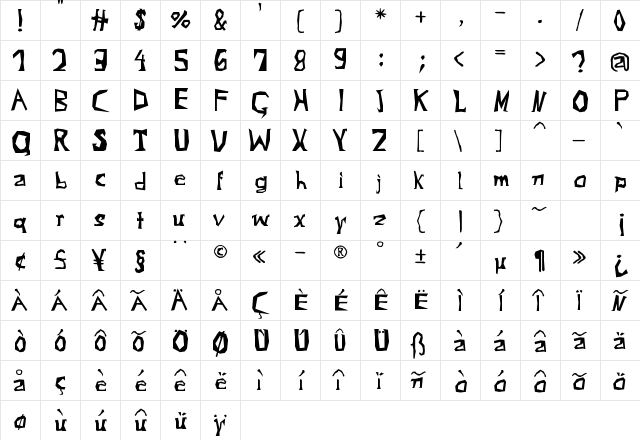
cray-zee Regular
Design Context for cray-zee Typeface
cray-zee is a composed and adaptable typeface that performs quietly and consistently across a wide range of design contexts.